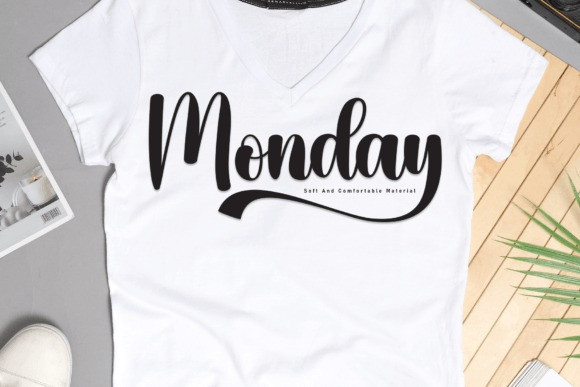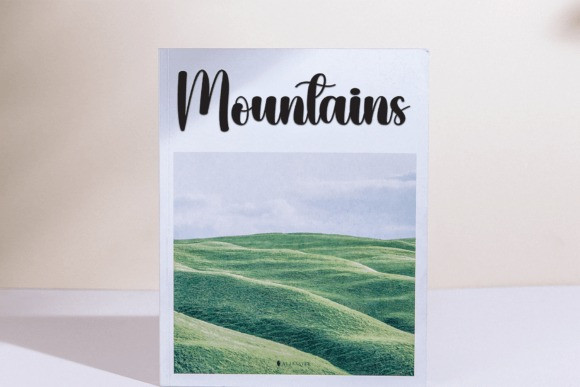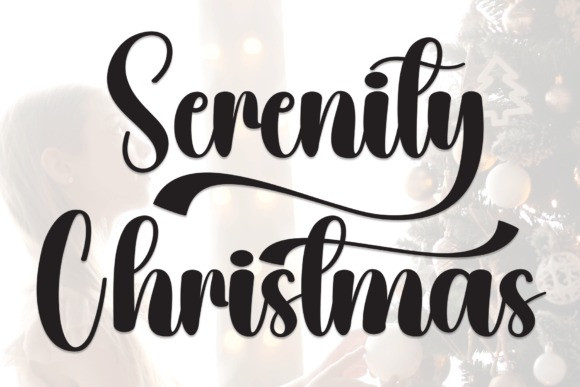
Serenity Christmas Font
Serenity Christmas Font is a cute and quirky handwritten font. It will add an incredibly joyful touch to your designs. Add this beautiful display font to each of your creative ideas and notice how it makes them stand out!